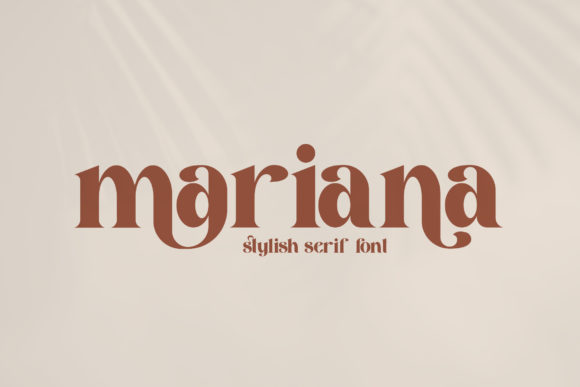
Journey into the realm of cinematic elegance with Mariana Font, a serif font masterpiece crafted by the visionary artists at Storytype Studio. This font is not merely a collection of glyphs; it's a gateway to a world of visual enchantment, where words dance across the screen like graceful ballet performers, leaving an indelible mark on the hearts of your audience.
Mariana Font is the epitome of sophistication, exuding an air of royalty and grace that is sure to captivate and mesmerize. Its meticulously designed curves and flourishes evoke a sense of timeless beauty, reminiscent of the golden age of Hollywood. Each letter is a work of art, carefully crafted to convey emotion and depth, ensuring that your message resonates with power and clarity.
Unleash the allure of Mariana Font in your movie poster designs, and watch as your words take on a life of their own. The font's inherent elegance elevates ordinary text into cinematic masterpieces, transporting your audience to a realm of wonder and intrigue. Whether you're crafting a blockbuster action thriller or an intimate drama, Mariana Font will effortlessly elevate your project to new heights of visual storytelling.
Beyond its cinematic charm, Mariana Font is a versatile performer, equally at home in the world of fashion, luxury branding, and typography art. Its regal presence adds a touch of opulence to logos, magazine layouts, and clothing designs, while its delicate flourishes bring a sense of whimsical charm to invitations, wedding stationery, and personal correspondence.
With Mariana Font as your creative ally, you possess the power to transform ordinary designs into cinematic masterpieces. Its captivating beauty and unmatched versatility make it the font of choice for discerning designers, artists, and storytellers who seek to leave an unforgettable impression on their audience.
Embrace the cinematic elegance of Mariana Font, and unlock a world of visual enchantment that will leave your audience breathless. Download Mariana Font today and embark on a creative journey that will redefine the boundaries of design and storytelling.